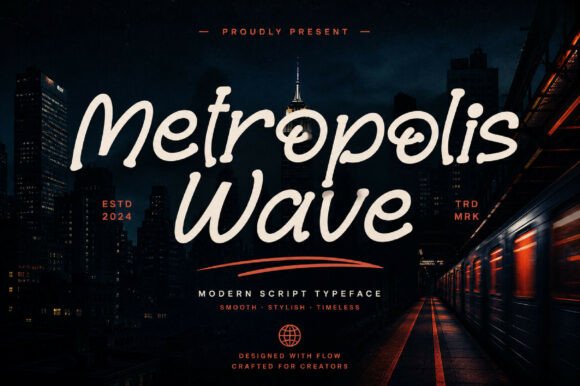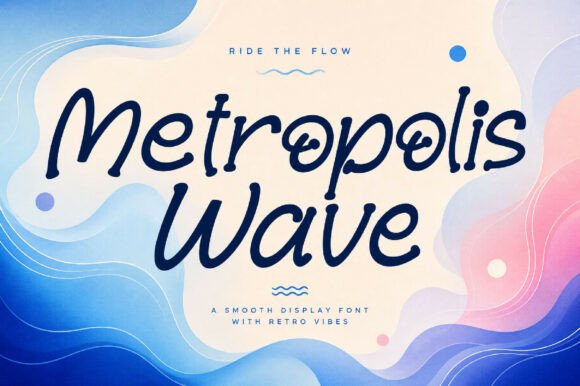
Introduction to Metropolis Wave Font Font
Fonts play a crucial role in design, and the Metropolis Wave Font font is a typeface that brings both character and versatility to any project. Whether you’re working on a branding project, a website, or a print design, the Metropolis Wave Font font offers a unique style that can elevate your work.
Metropolis Wave – Modern Handwritten Script Font Metropolis Wave is a modern handwritten script font designed to bring elegance, movement, and personality to your creative projects.
With its smooth letterforms, flowing curves, and stylish handwritten character, this font creates a refined yet expressive look that feels fresh, artistic, and contemporary Its graceful script style makes Metropolis Wave perfect for designs that need a personal, fashionable, and modern touch.
Key Features of Metropolis Wave Font Font
• ✅ High-quality typeface designed for professional use
• ✅ Includes a wide range of glyphs and characters
• ✅ Ideal for logos, branding, websites, and print
Why Choose Metropolis Wave Font Font?
The Metropolis Wave Font font is more than just a typeface – it’s a design tool that helps you communicate your message with style and clarity. Its unique character set and versatile design make it suitable for a wide range of applications, from elegant invitations to bold headlines.
With its carefully crafted letterforms and balanced proportions, the Metropolis Wave Font font ensures readability and visual appeal across all mediums.
What makes Metropolis Wave Font font special?
The Metropolis Wave Font font stands out with its unique design, exceptional readability, and versatility across various design applications.